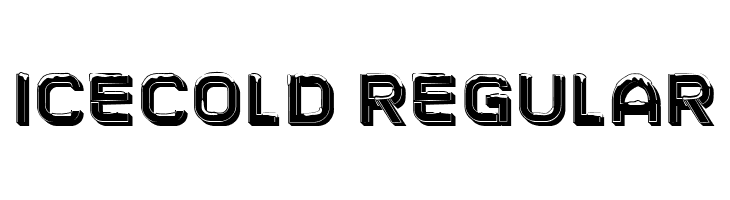
A bold, geometric font with a three-dimensional effect and strong visual impact.
تحظى Icecold Regular, Rebeca, Meranie, Game Continue 03 and Exo 2.0 Medium Italic بشعبية لخطوطها النظيفة وتطبيقاتها الواسعة — من الهوية البصرية إلى الصفحات المقصودة والملصقات.